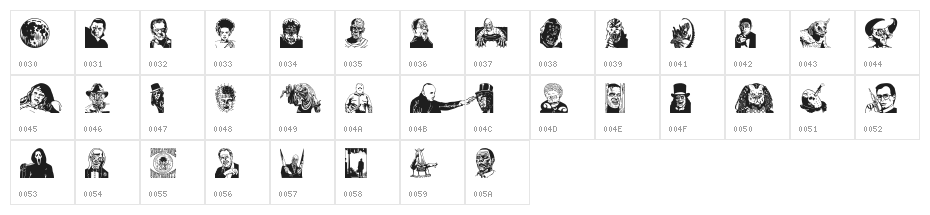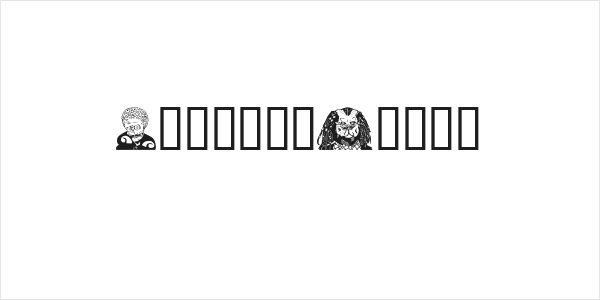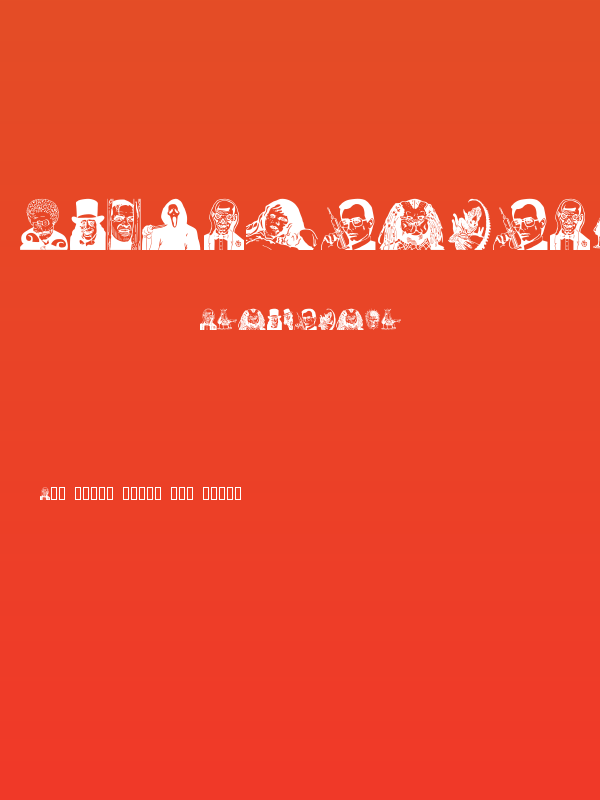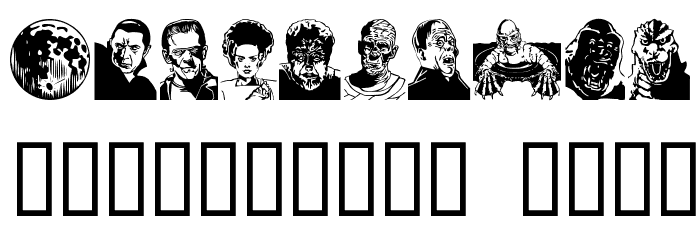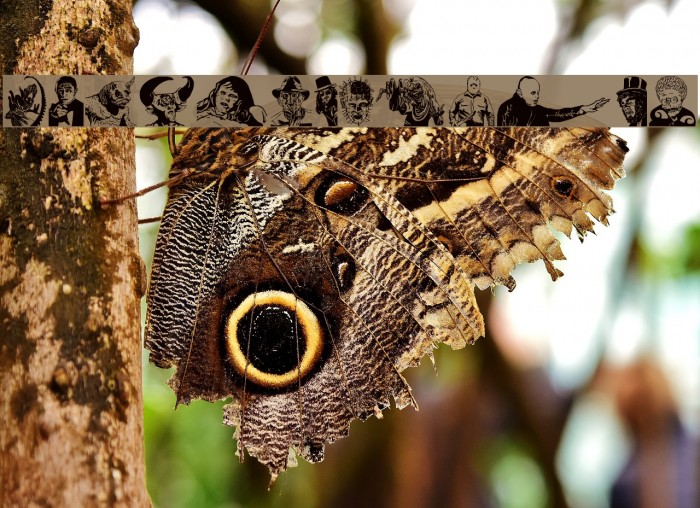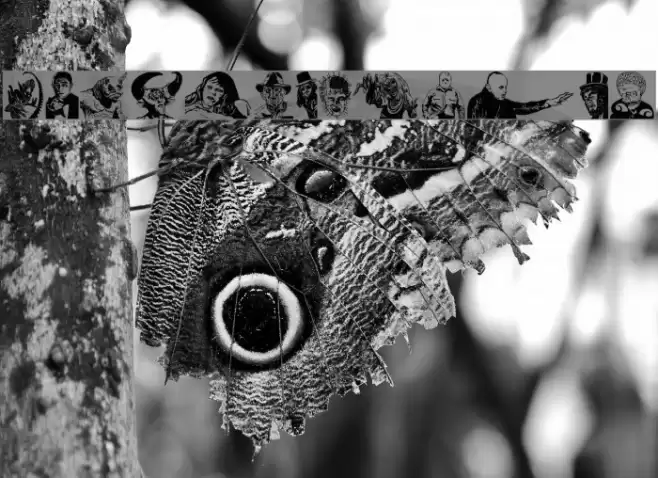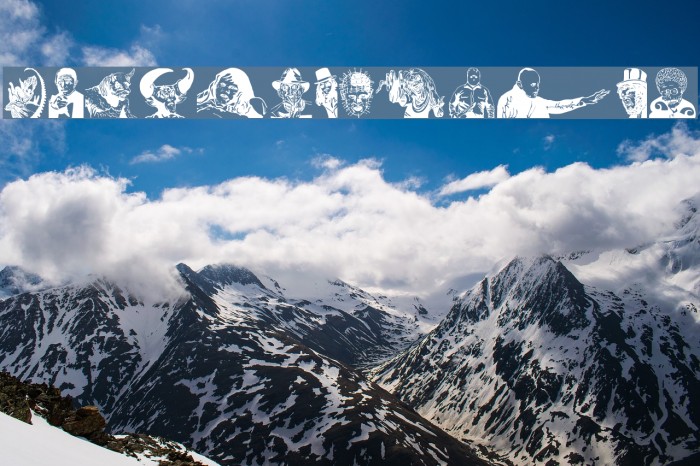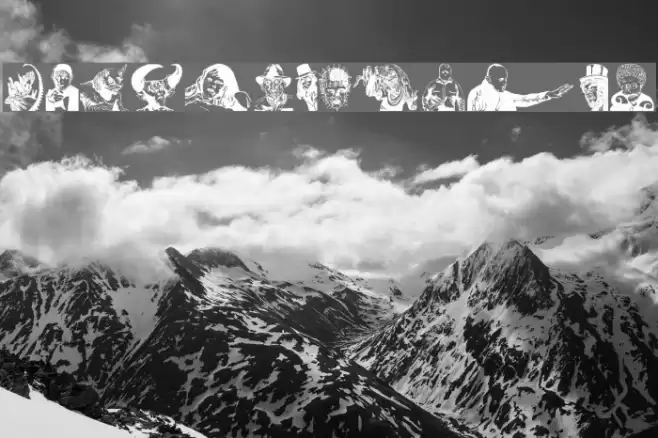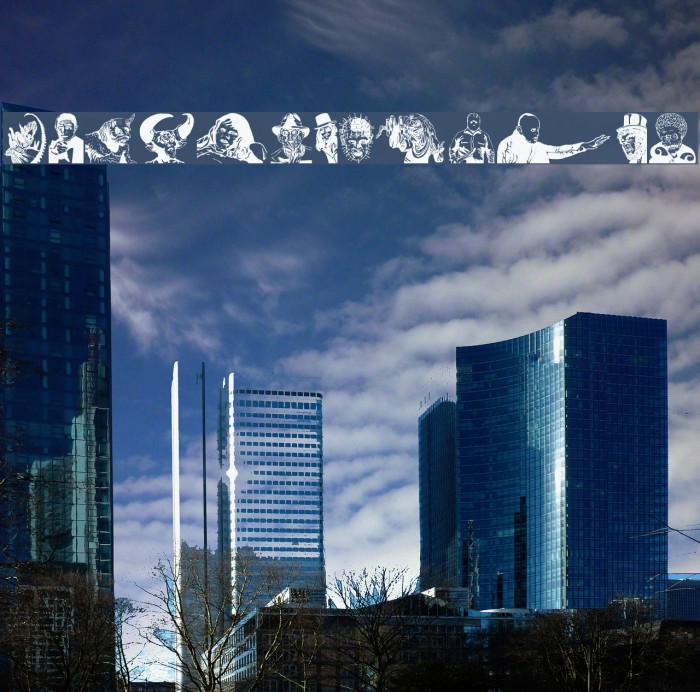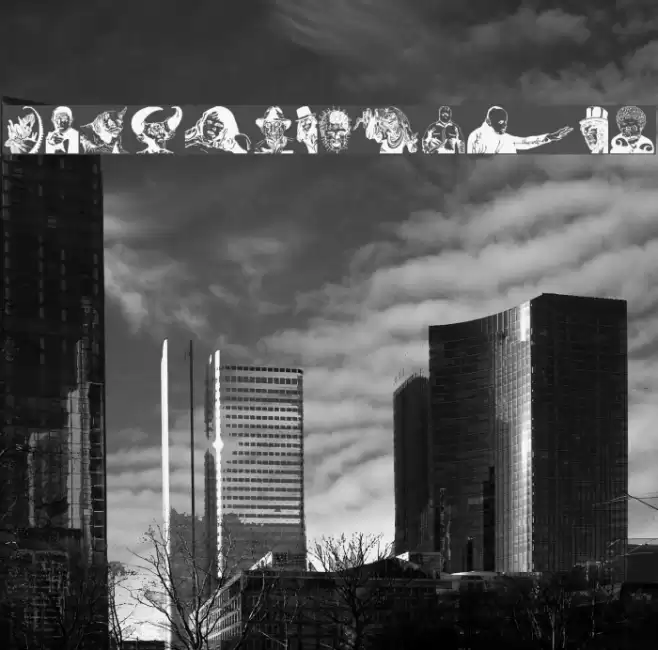
MonsterParty Font
MonsterParty Description
This is not a traditional font but rather a collection of iconic monster illustrations. Each character is represented by a detailed black and white drawing of a famous monster or horror figure. The images are highly detailed, capturing the essence of each character with intricate line work and shading. This set is more of a decorative or thematic collection, perfect for projects that aim to evoke a sense of horror or nostalgia for classic monster movies.
| Use Case | Logos, Posters, Thematic Designs |
| Proposed Projects | Ideal for Halloween-themed designs, horror movie posters, or any project requiring a spooky, nostalgic touch. |